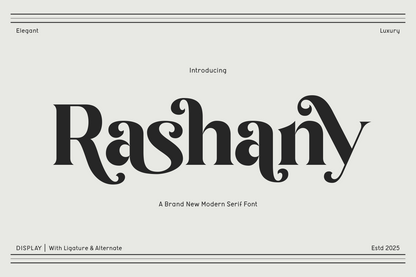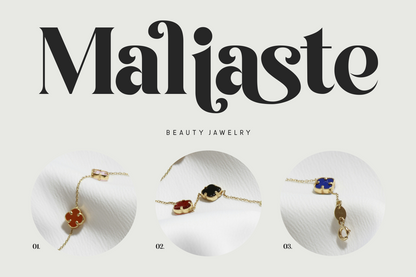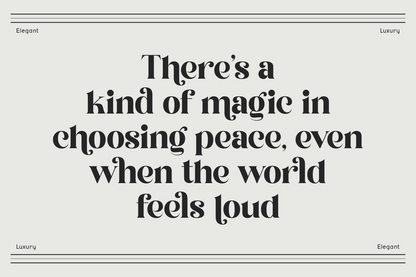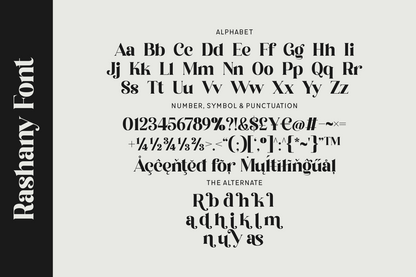
Rashany is a bold modern serif font full of character and attitude. Featuring ornate ligatures and alternates with expressive curls, it’s made for statement-making titles and high-impact branding. Perfect for logos, fashion campaigns, or modern packaging, Rashany merges vintage drama with sleek modernism in a way that commands attention.